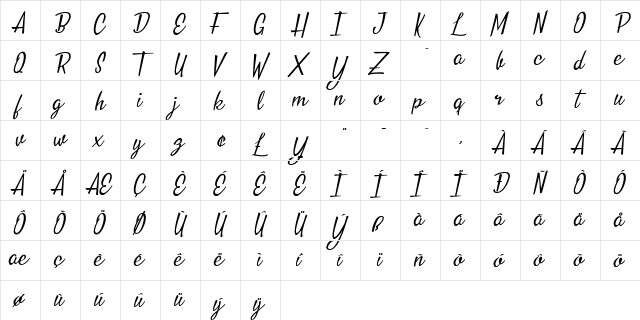
Nouvelle Vague Personal Use Regular
| Foundry | Billy Argel |
| Designer | Billy Argel |
Design Context for Nouvelle Vague Personal Use Typeface
Nouvelle Vague Personal Use is a composed and adaptable typeface that performs quietly and consistently across a wide range of design contexts.